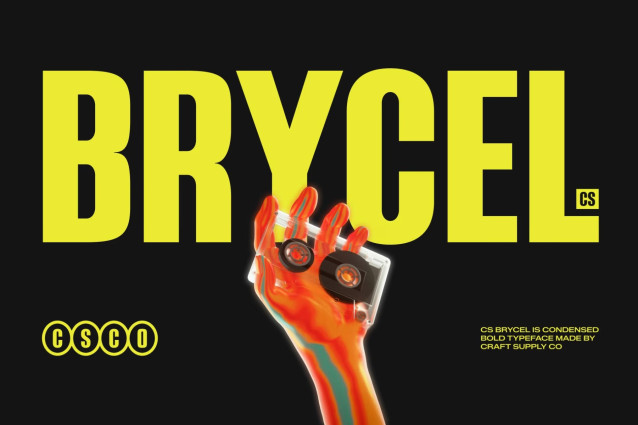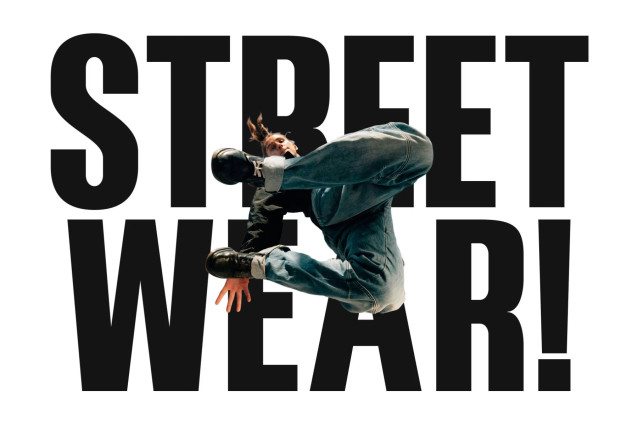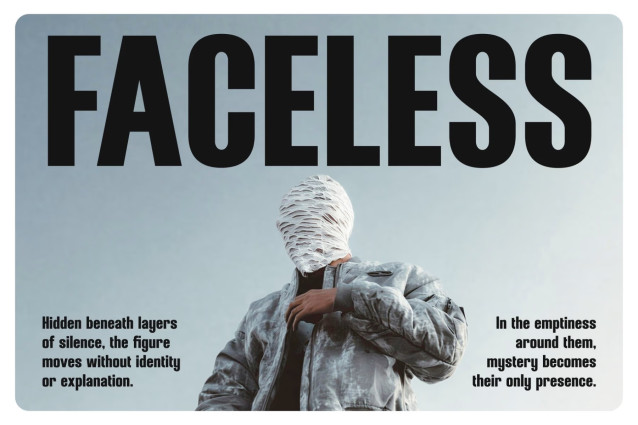
CS Brycel – Condensed Bold Typeface: Where Industrial Power Meets Modern Impact
Strong Condensed Forms with Technical Precision
This is a condensed display font with an industrial aesthetic that delivers a strong, masculine, and technical appearance. Its narrow proportions and solid structure create a commanding visual presence, allowing text to feel powerful and space-efficient at the same time. Every letterform is crafted to project confidence, precision, and modern strength.
Industrial Character with Contemporary Edge
This font combines bold geometry with clean construction to create a sharp and eye-catching typographic style. Its technical feel gives the font a functional and futuristic personality, making it ideal for projects that demand clarity, intensity, and bold visual impact.
Bold Style with High Visibility
This font maintains excellent readability even in large-scale compositions. Its condensed weight enhances visual density while preserving strong legibility, making it highly effective for dynamic layouts and impactful branding systems.